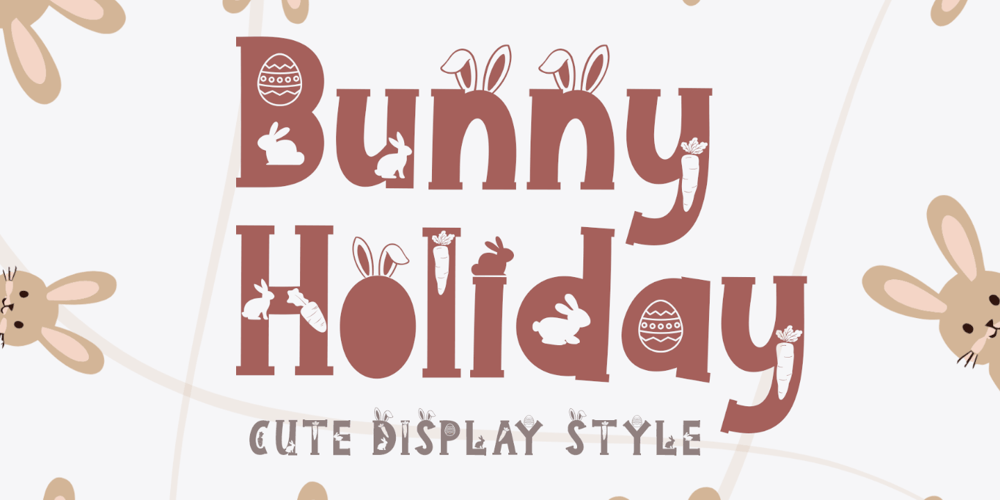
Bunny Holiday Font Family was designed by Isroni Yoga Prasetya and published by Yoga Letter. Bunny Holiday contains 1 styles and family package options. “Bunny Holiday” is a unique and cute display font. This font is equipped with uppercase, lowercase, numeral, punctuations and multilingual support. It is very suitable for use for easter, valentine, comics, cartoons, banners, posters, prints, branding, stickers, logos, invitations and others.